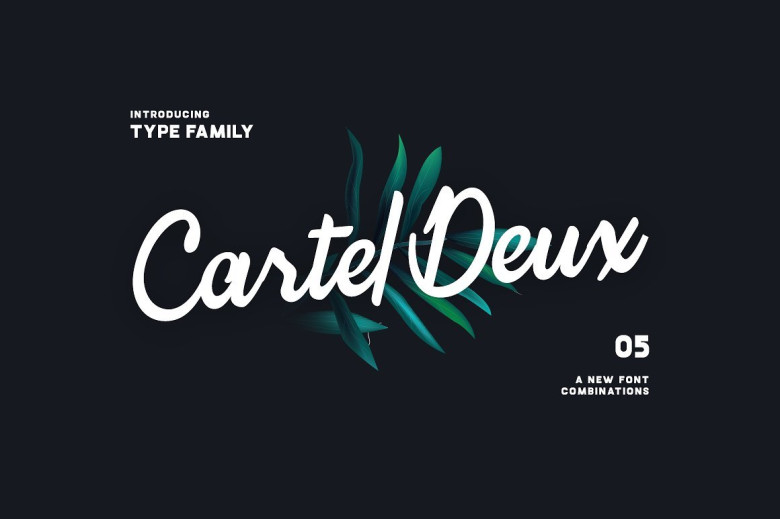
Cartel Deux Script Font Family
Introducing Cartel Deux Script Font Family! Cartel Deux Script designed and shared by CartelDeux™. Cartel Deux is a new typeface by Cartel Deux™. It’s the combinations fonts include a script and bold style and also have a different style between Smooth & Sharp Script. To complete the set of fonts, Cartel Deux offers 5 style in the family.